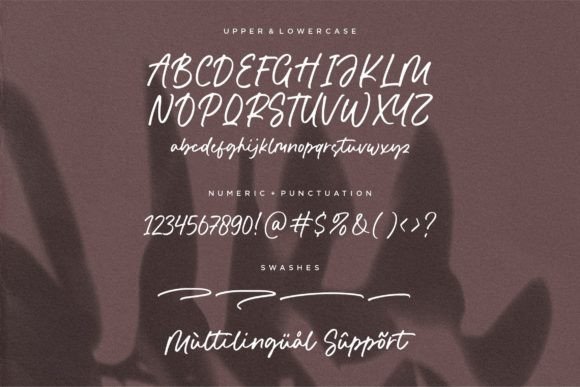
Introduction to Humble Monster Font
Have you ever stared at a blank canvas, trying to bring your creative vision to life? The blank page can be intimidating, but with the right tools, the possibilities become endless. As a designer, you’re constantly on the lookout for high-quality design resources to elevate your projects. That’s where the Humble Monster Font comes in – a game-changing modern calligraphy script font that will transform your creative endeavors.
With its casual style and versatility, the Humble Monster Font is an ideal addition to any design project. Whether you’re working on a logo, wedding invitation, or social media graphic, this font will add a touch of sophistication and elegance. Plus, its transparent background and PUA encoding make it incredibly easy to use, allowing you to focus on the creative process rather than technicalities.
Key Features of Humble Monster Font
- Unique Design: The Humble Monster Font features a quirky and playful design, perfect for creative projects that require a touch of whimsy.
Honest Review: Humble Monster Font
- High-quality design: The font is crisp and clear, making it perfect for use in a variety of creative projects.
- Limited style options: While the font itself is great, the style options are somewhat limited, which may not be ideal for designers who want a lot of flexibility.
- Not suitable for all design projects: The font may not be the best choice for projects that require a more traditional or formal look.
Overall, I’m really impressed with the Humble Monster Font. It’s a great resource for designers who want a high-quality, unique font without breaking the bank. With a little creativity, the limitations can be easily worked around, and the end result is well worth the effort.
Tips for Getting the Most Out of Humble Monster Font
Use the Humble Monster Font for creative projects that require a unique and playful touch. This font is perfect for designing social media graphics, posters, and flyers. You can also use it for designing logos, branding materials, and other design resources.
The Humble Monster Font is a high-quality design resource that can be used for a variety of purposes, including: